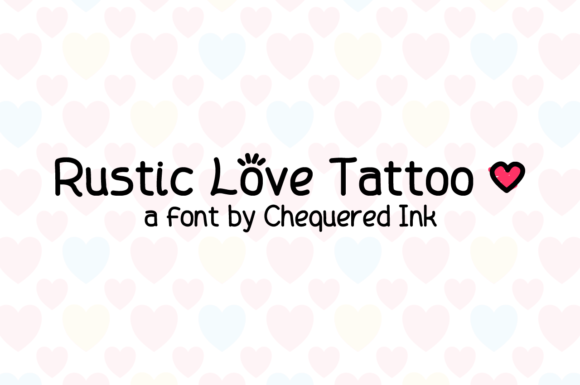
Behold! Rustic Love Tattoo font, an exclusive script typeface hailing from the creative minds at Chequered Ink. Prepare to fall head over heels for this enthralling masterpiece, specifically crafted to make your words dance and hearts flutter. Say goodbye to ordinary fonts and embrace the extraordinary magic of Rustic Love Tattoo.
Picture this: your crush's eyes lighting up as they read your love letter adorned with Rustic Love Tattoo's captivating charm. Unleash your emotions, let your ink do the talking, and sweep them off their feet with every stroke. Allow your words to take on a whole new persona, adorned with inked artistry that whispers tales of love and devotion.
But wait, there's more! Rustic Love Tattoo isn't just reserved for romantic endeavors. Unleash its versatility and make memes that are guaranteed to tickle funny bones and spread cheer. Let your creativity shine as you weave witty words together, enveloped in the unique embrace of Rustic Love Tattoo. This enchanting font is your secret weapon to leave an indelible mark on the digital world.